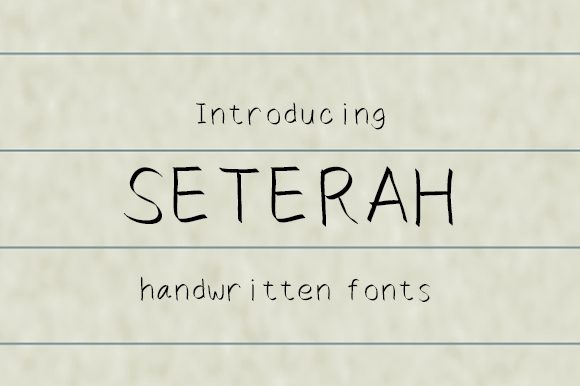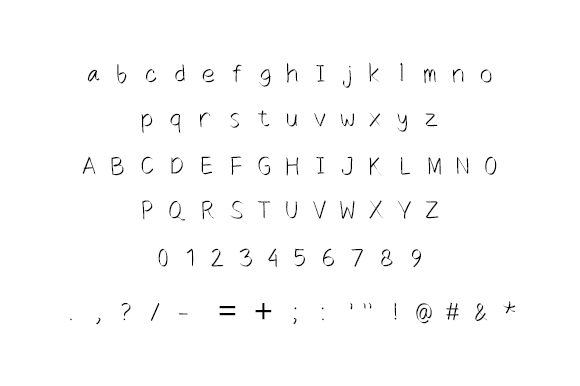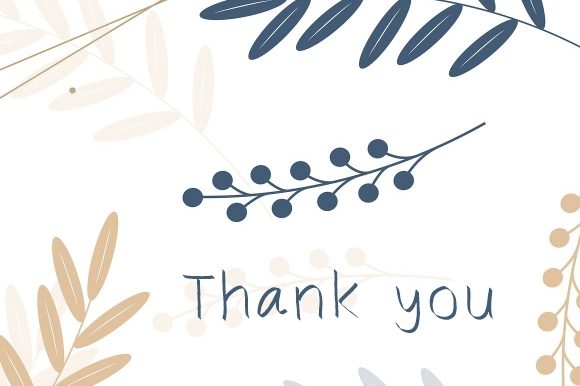
Seterah Font
About Seterah Font
Seterah is a timeless and relaxed handwritten font. Whether you’re looking for fonts for Instagram or calligraphy scripts for DIY projects, Seterah will turn any creative idea into a true piece of art!